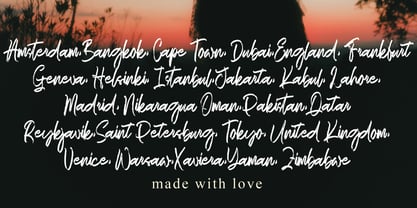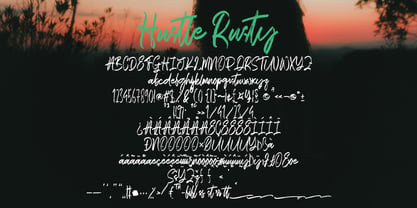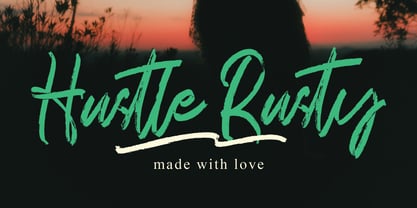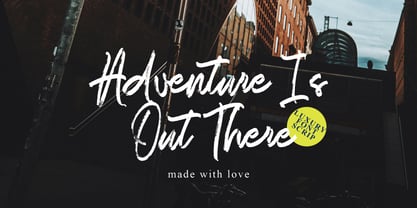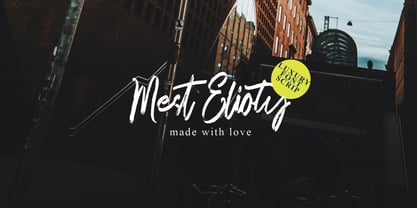
Husttle Rusty
by Pineungtype misinklab
The Husttle Rusty Font Family was designed by Beni Saswita and published by Pineungtype misinklab. Husttle Rusty contains 1 styles. More about this family
Designers: Beni Saswita
Foundry: Pineungtype misinklab